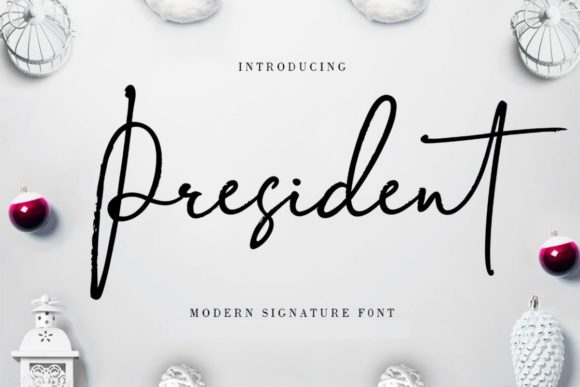
Behold, the President Font – a script font like no other, ready to grace your designs with elegance and sophistication. Crafted by the esteemed Stellar Studio, this font family embodies timeless beauty, inviting you to embark on a journey of creative expression.
President Font's captivating variable baseline lends a touch of dynamism to your designs, effortlessly adding visual interest and depth. Its fine lines, meticulously drawn, exude a classic, modern aesthetic that transcends time.
With the President font, you'll elevate your projects to new heights of elegance. Its graceful curves and sweeping strokes will add a touch of luxury and sophistication to any design. Whether you're creating wedding invitations, branding materials, or social media graphics, the President font will leave a lasting impression.
Imagine your words dancing across the page, adorned with the timeless beauty of the President Font. Its versatility knows no bounds, making it a perfect choice for a wide range of projects. Let your creativity flourish as you explore the endless possibilities that this font has to offer.
With the President font, you'll join a community of discerning designers and typographers who appreciate the finer things in life. Experience the satisfaction of creating designs that exude elegance and sophistication, leaving your audience spellbound.